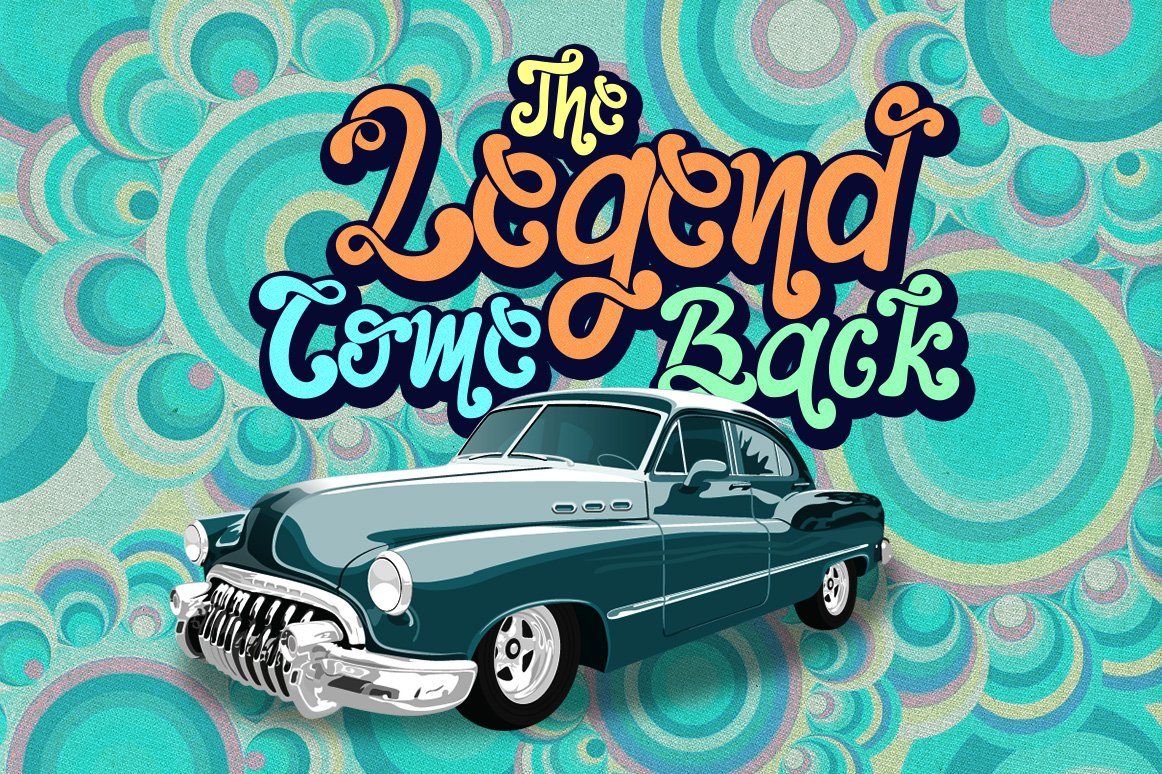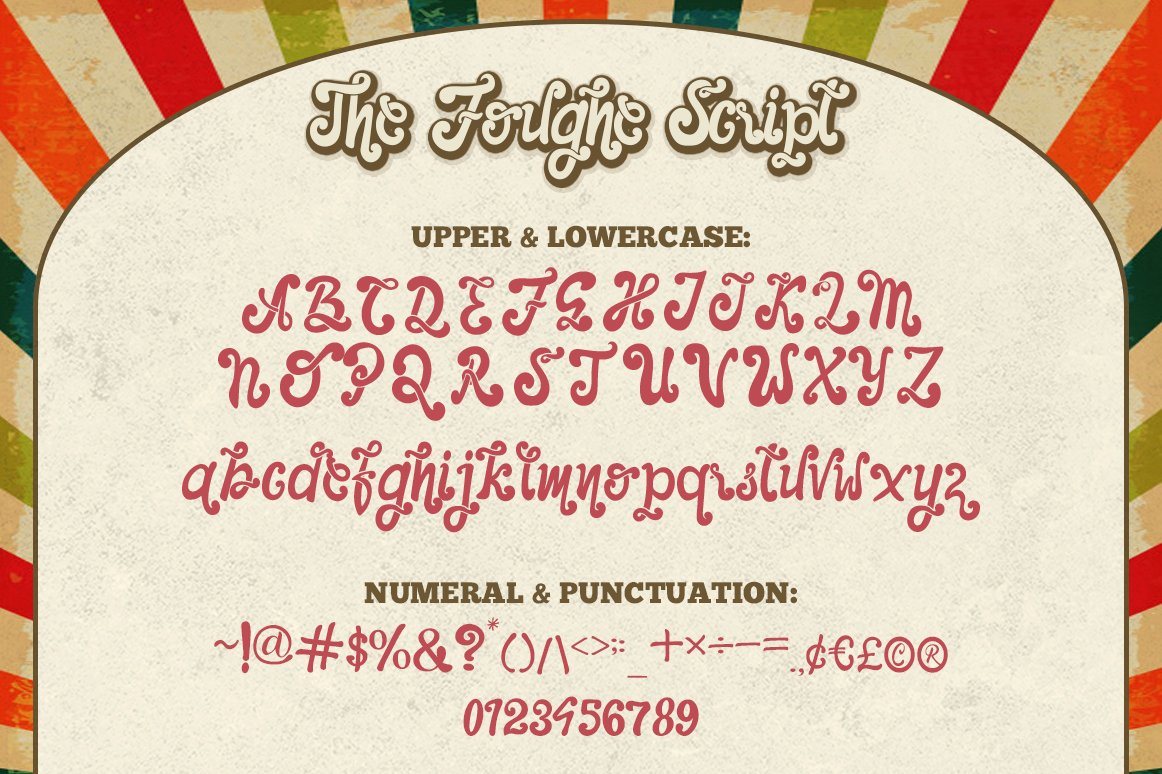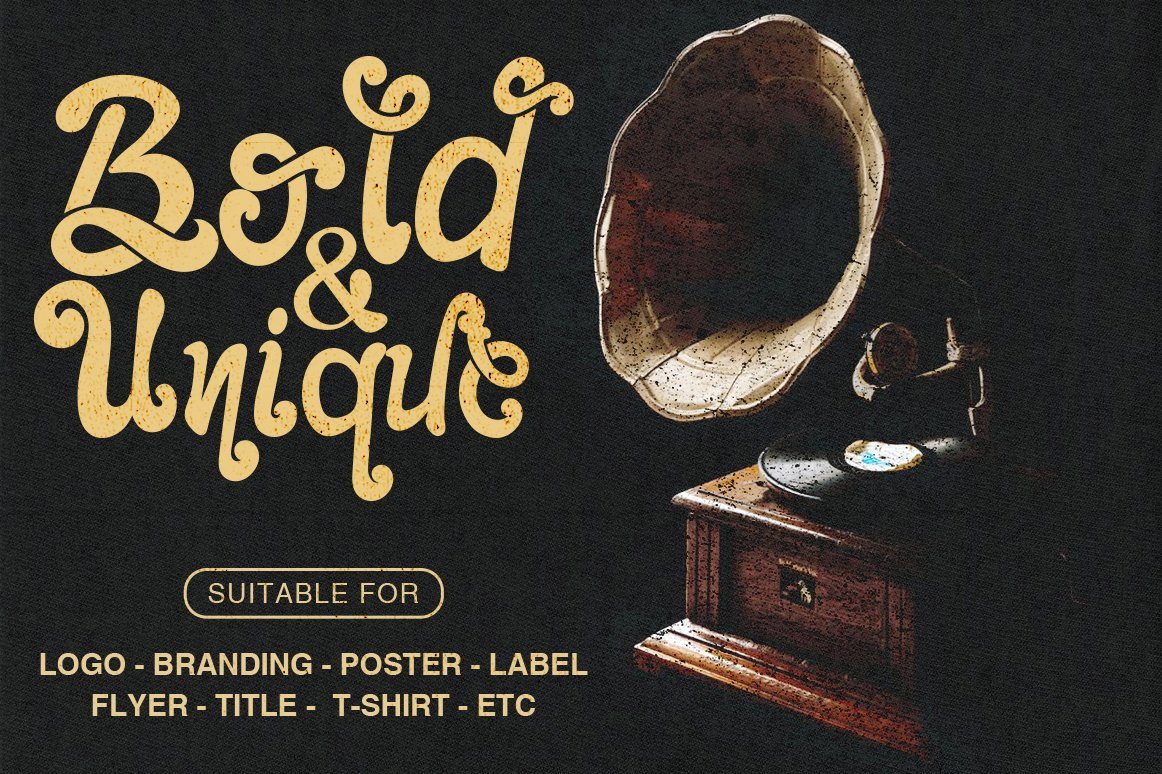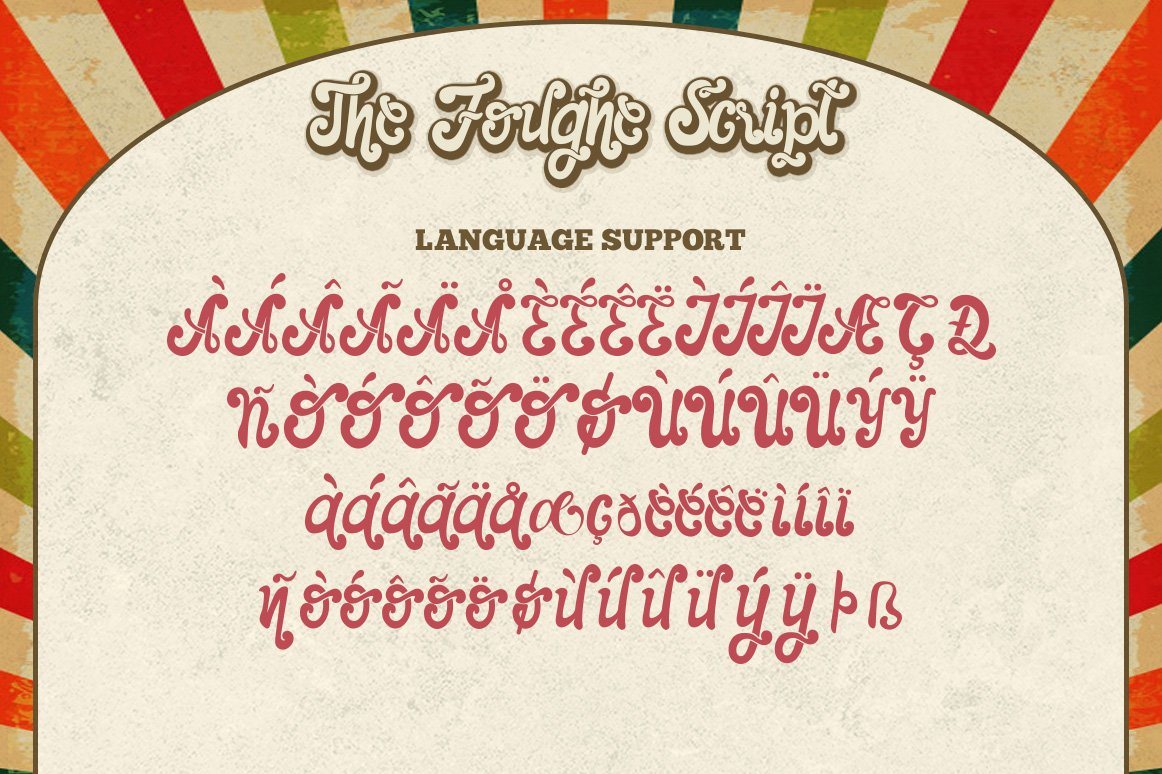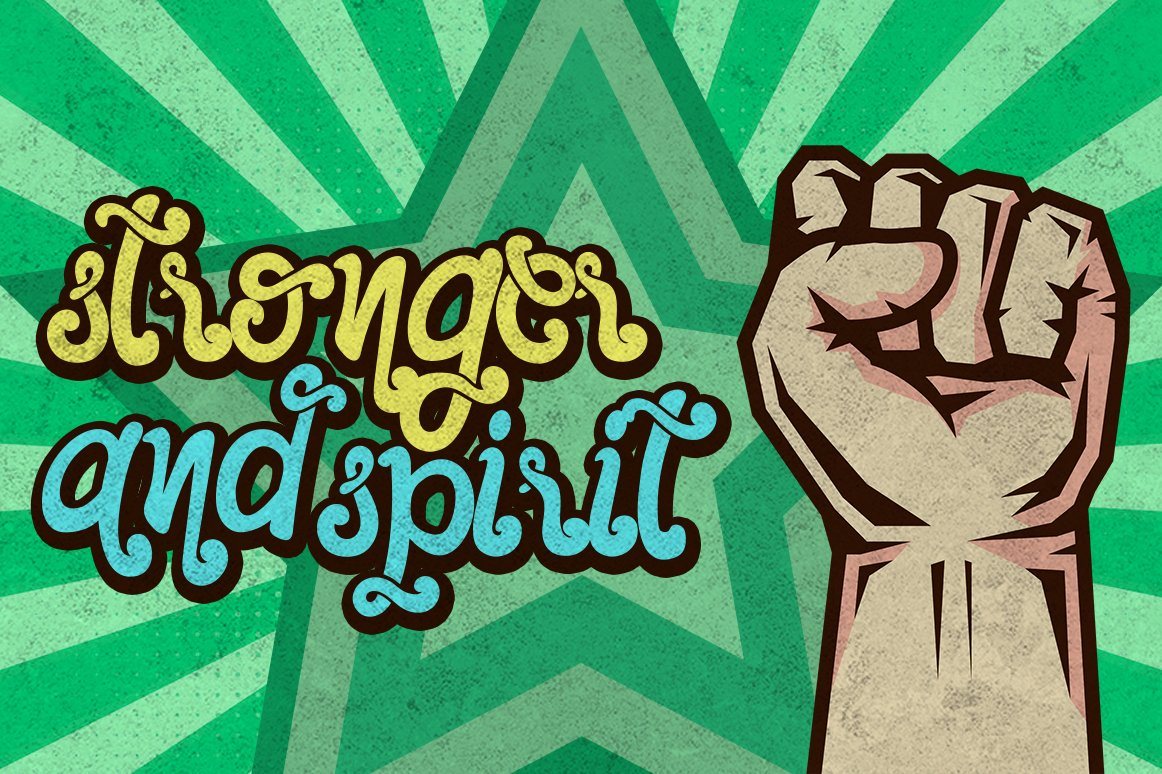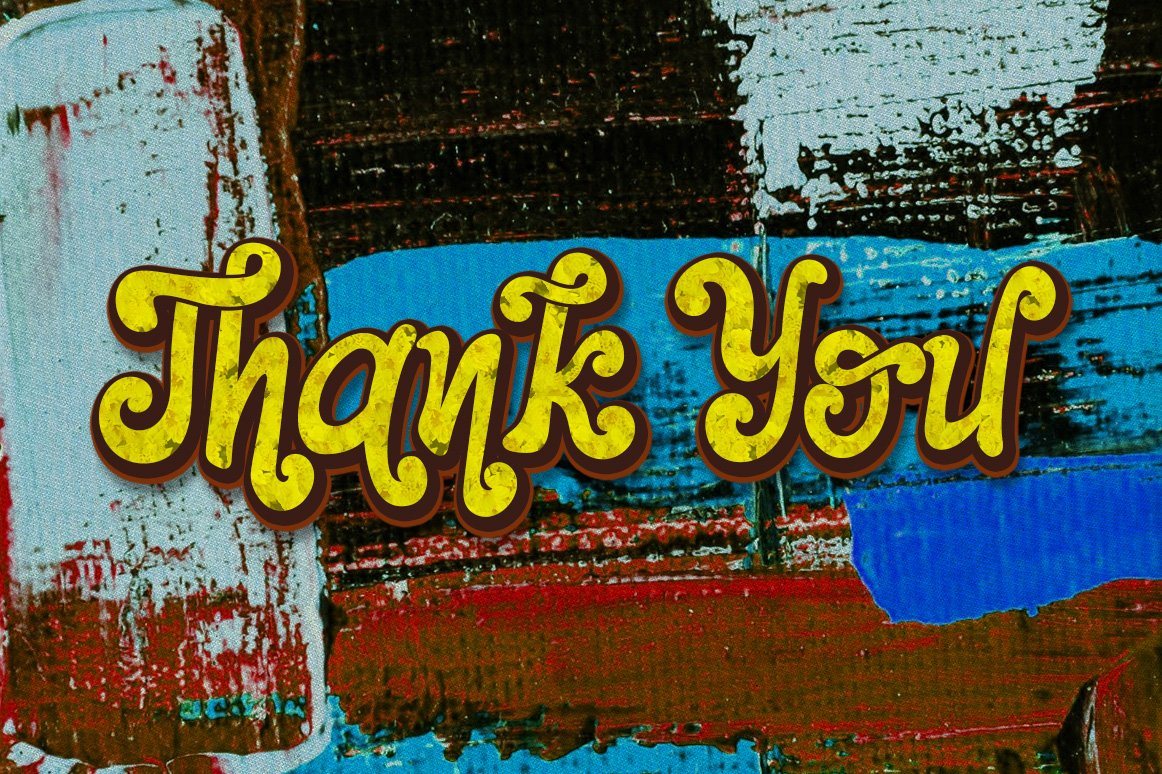
About The Foughe Script
Introducing The Foughe Script Font – A unique, vintage, and retro font. It was designed with a classic touch which will make your design stand out. This font is suitable to use as a logotype, product designs, label, watermark, social media posts, apparel, invitation, signboard, sports club, motor/car community, special events or anything that need classic, retro, or vintage taste. What’s Included : Ton of glyphs (include Uppercase, Lowercase, Numerals & Punctuations, Ligature, Alternate, and Swashes) Works on PC & Mac Simple installations Accessible in the Adobe Illustrator, Adobe Photoshop, Adobe InDesign, even work on Microsoft Word. PUA Encoded Characters – Fully accessible without additional design software. Fonts include Multilingual Support for: Afrikaans, Albanian, Danish, Dutch, Estonian, Finnish, German, Icelandic, Italian, Norwegian, Portuguese, Spanisch, Swedish, Zulu We hope you enjoy the font. Thank You